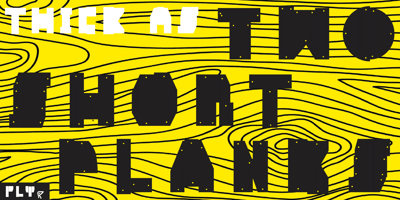
Ply font
Ply Font Family was designed by Tim Barnes and published by chicken. Ply contains 6 styles and family package options. So the lumber was cheap – just a pile of offcuts – and so was the carpenter… And you couldn’t say he was exactly lazy, but he was certainly efficient… mostly he would just cut a couple of planks to size, slice off a corner now and then, once in a blue moon hash up a curve… I guess he didn’t have a drill, cos there are no holes… and he sure as hell didn’t have a ruler… But he did have some kind of an eye, and until it falls off the wall it’ll look pretty OK… Ply comes in six styles, offering differing degrees of neatness and adorned or not with fixings… There are money-saving packages too… It’s uppercase only, with variations between upper and lower case, and OpenType types can switch on Stylistic Set 1 to take the effort out of keeping things varied…